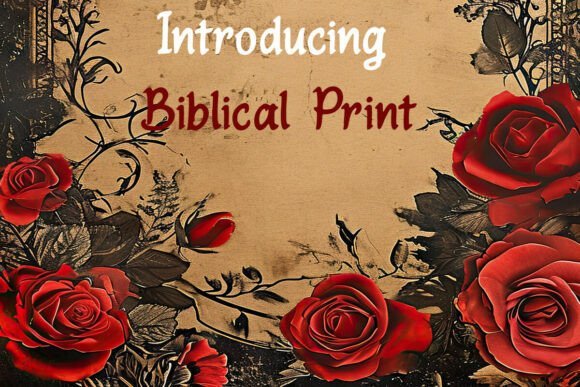
Timeless Typography: Unlocking the Power of Biblical Print Font
You know that feeling when you stumble upon a font that perfectly captures the essence of your design? It’s like the words leap off the page and transport you to a world of endless creativity. For designers, finding the right font can be a game-changer, and that’s exactly what Biblical Print Font aims to deliver.
Crafted with versatility in mind, Biblical Print Font is more than just a font – it’s a way to infuse your designs with a timeless aesthetic. Whether you’re working on a t-shirt, branding, or magazine, this font is sure to elevate your project and leave a lasting impression. Its value lies in its ability to adapt to any context, making it a valuable asset for designers who want to add a classic touch to their work.
With Biblical Print Font, you can take your designs from ordinary to extraordinary. Give your greeting cards a warm welcome, revamp your social media presence with stylish typography, or add a vintage charm to your poster designs. The possibilities are endless, and with this font, your creativity knows no bounds.
Biblical Print Font Key Features
- Unique Characteristics: Biblical Print Font features a unique, elegant design that mimics the look of handwritten text, making it perfect for use in religious or spiritual contexts, as well as in creative and artistic projects.
Biblical Print Font Review
Overall, I’m quite impressed with the Biblical Print Font. Here are the things that caught my attention:
- ✨ Unique and elegant script style: The font’s distinctive script style is reminiscent of ancient manuscripts, making it perfect for projects that need a touch of historical authenticity.
- ✨ High legibility: Despite its ornate appearance, the font is surprisingly easy to read, even at smaller font sizes.
- ✨ Beautiful ampersands and other special characters: The font’s ampersands, question marks, and other special characters are beautifully designed and add to the overall aesthetic.
However, I do have a few concerns:
- ⚠️ Limited font weights: The font only comes in a few weights, which may limit its versatility for certain projects.
- ⚠️ Not ideal for body text: While the font is great for titles and headings, it may not be the best choice for large blocks of body text due to its ornate nature.
- ⚠️ Not web-friendly: The font’s complex design may cause issues with font rendering on certain web browsers or devices.
Overall, I think the Biblical Print Font is a great addition to any designer’s toolkit, but it’s essential to use it judiciously and in the right context.
Tips for Getting the Most Out of Biblical Print Font
To get the most out of Biblical Print Font, consider the following tips:
- Use it for titles and headings to add a touch of elegance.
- Combine it with other fonts to create a unique and eye-catching design.
- Experiment with different font sizes and colors to achieve the desired effect.
Biblical Print Font is commonly used for:
- Church and ministry materials.
- Book